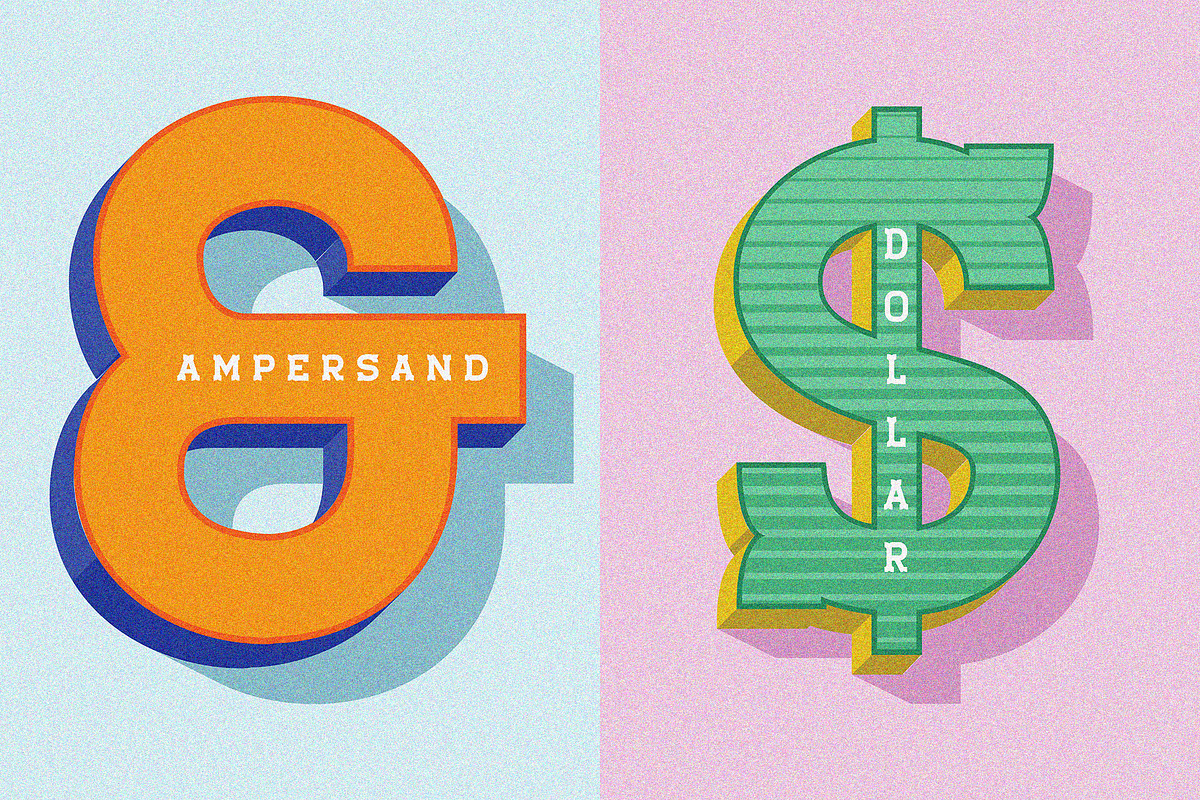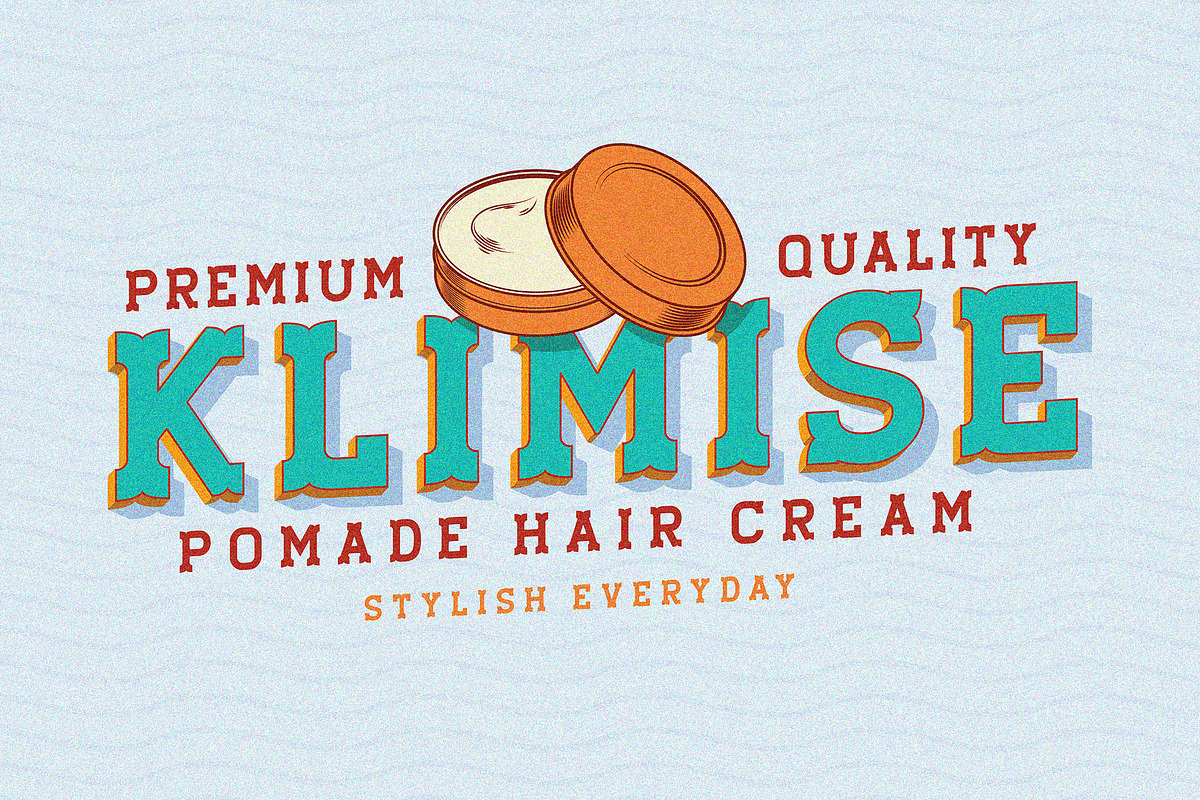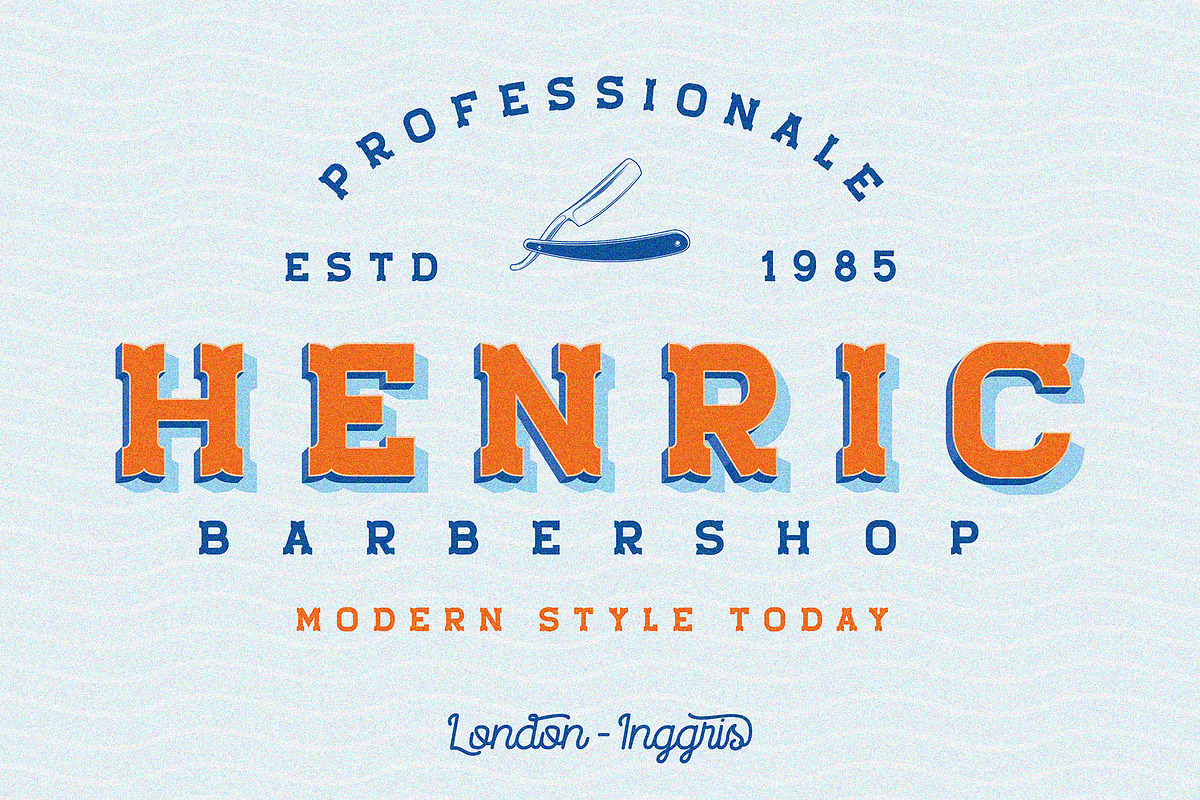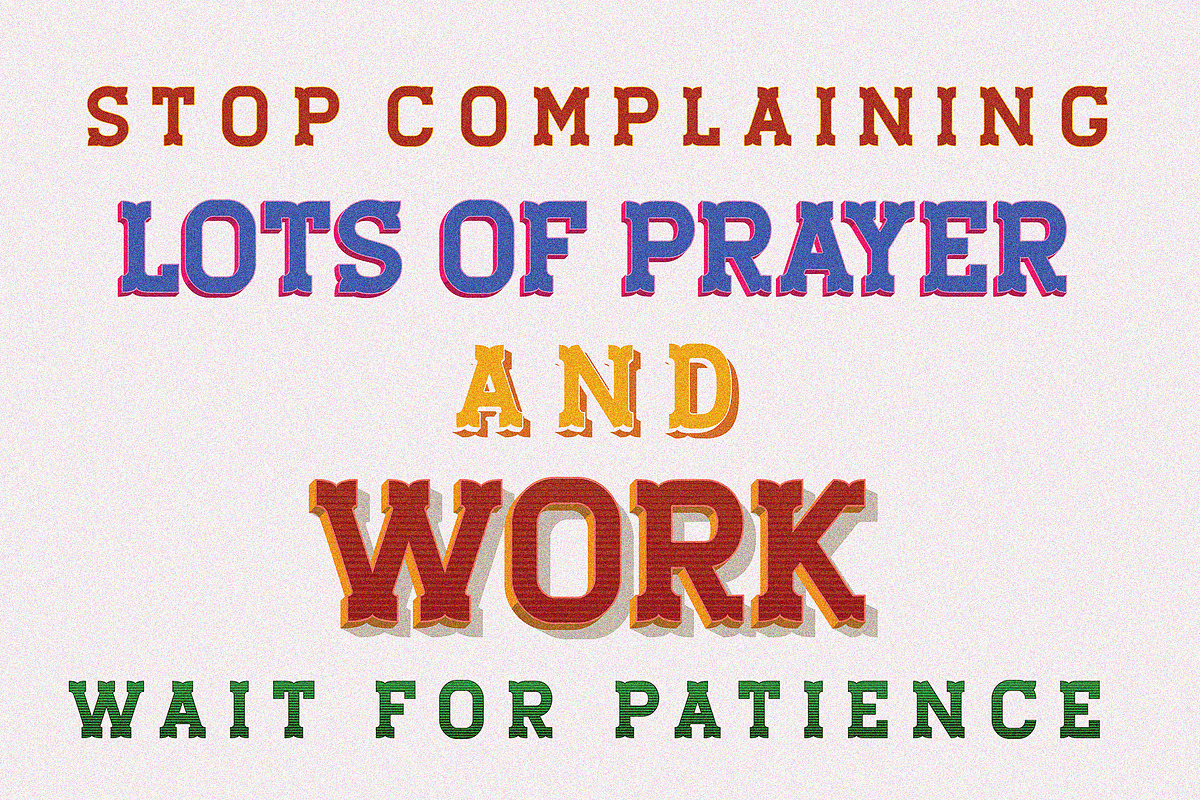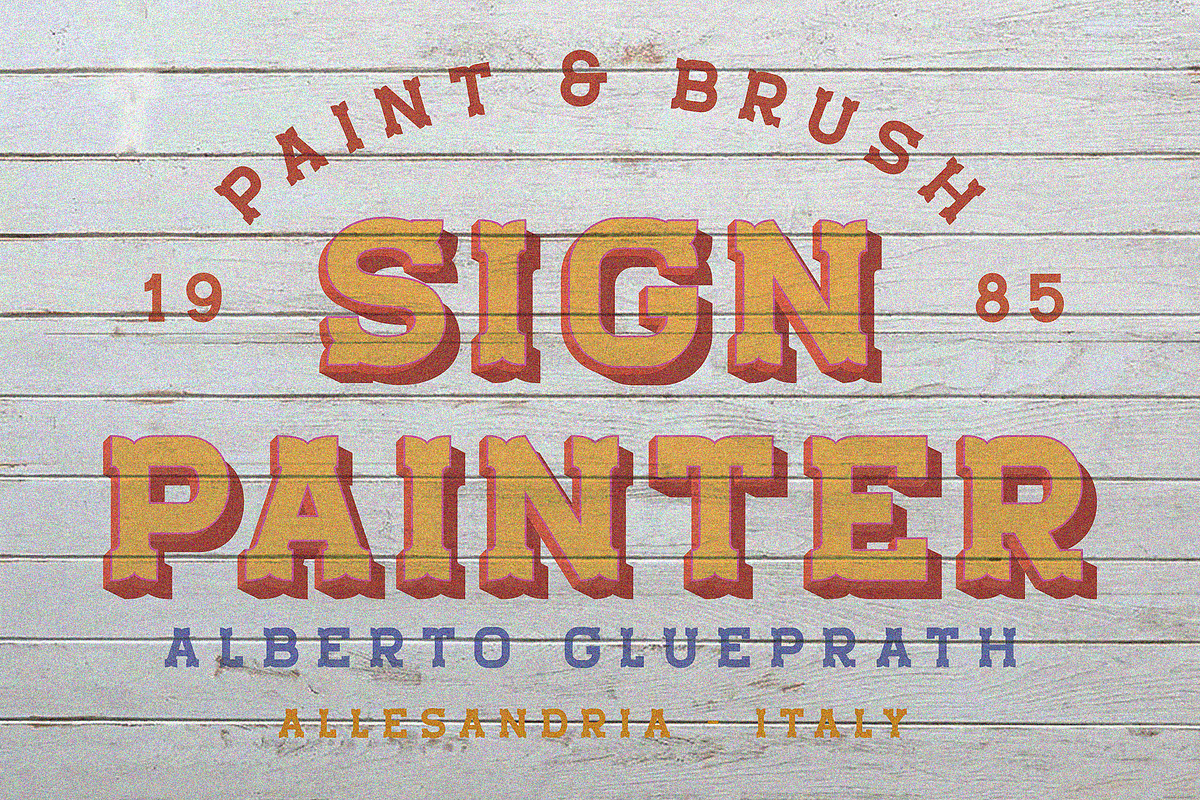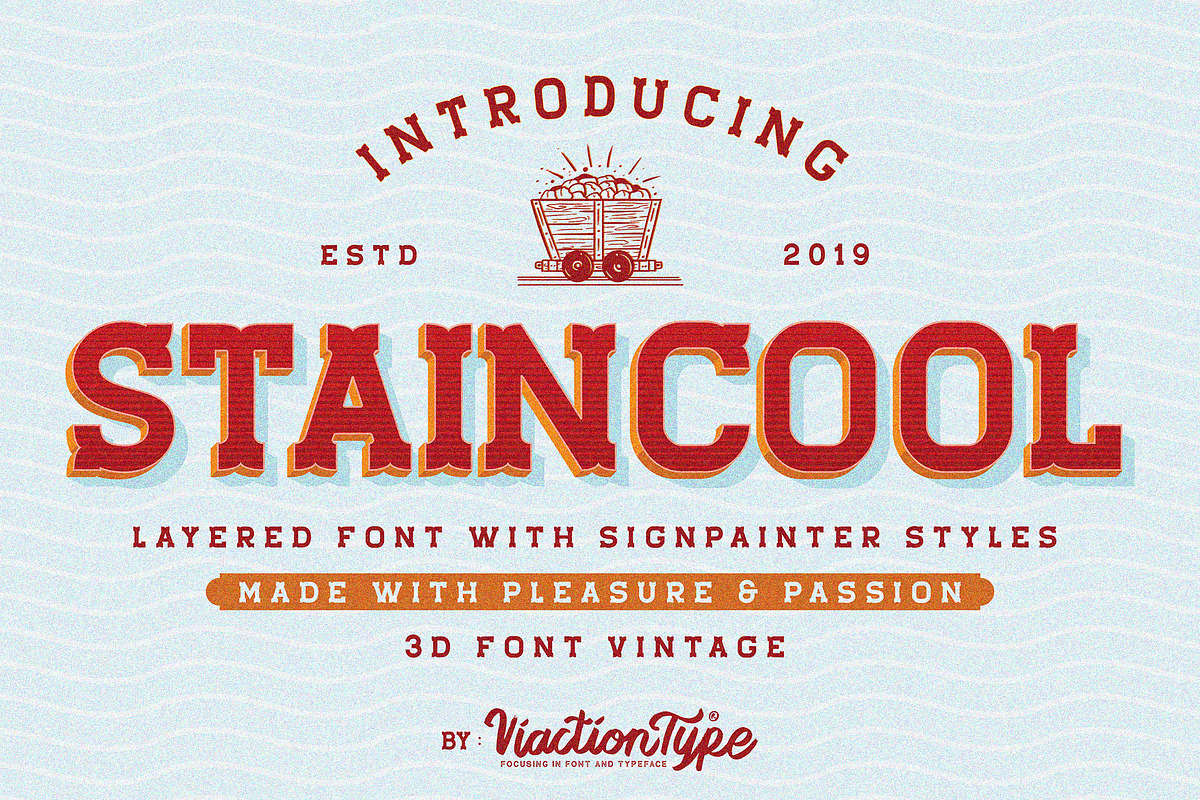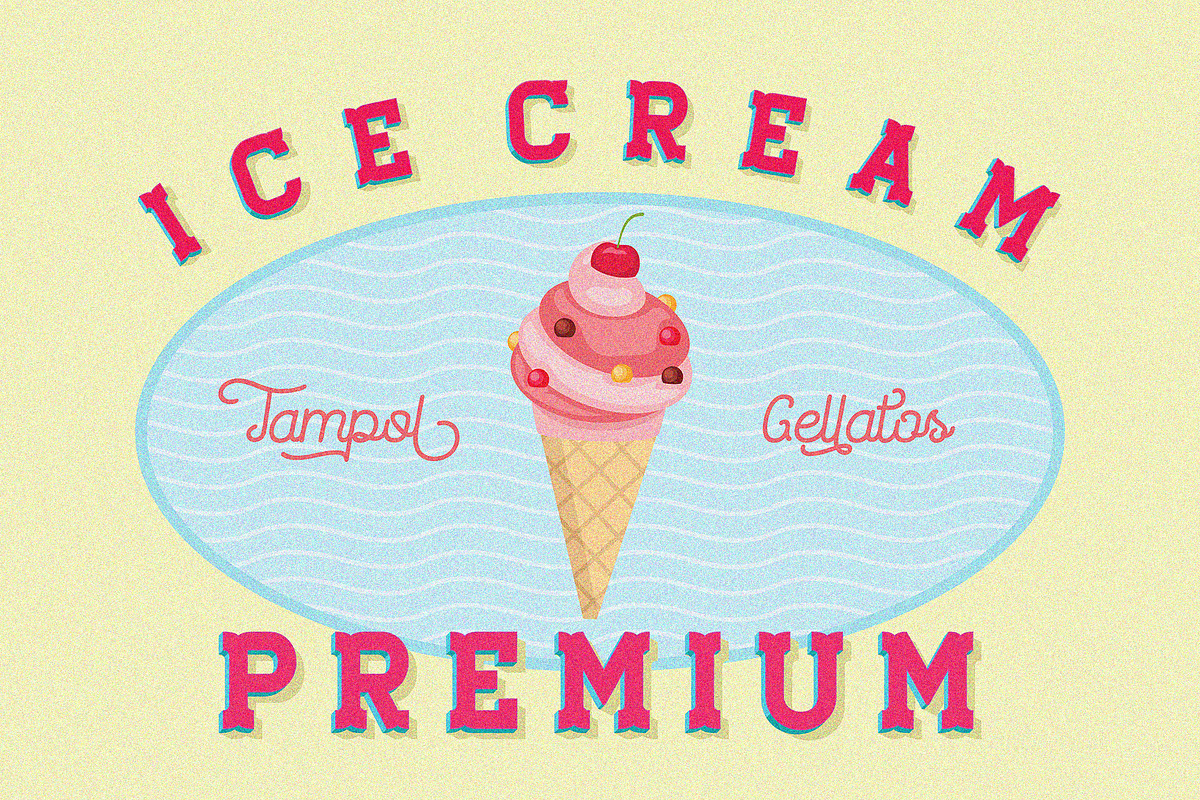
Staincool - Layered Font
New product Staincool Layered Font with retro style. Inspired by the artist's sign painter style, there are 6 layers that are easy to use. Staincool development from the Stengkol 04 font ( that is added to 3D fonts. This font is perfect for various design purposes such as labels, merchandise, packaging, logotype, sign and more.
Layered Font Staincool consists of 6 layer combinations, namely: